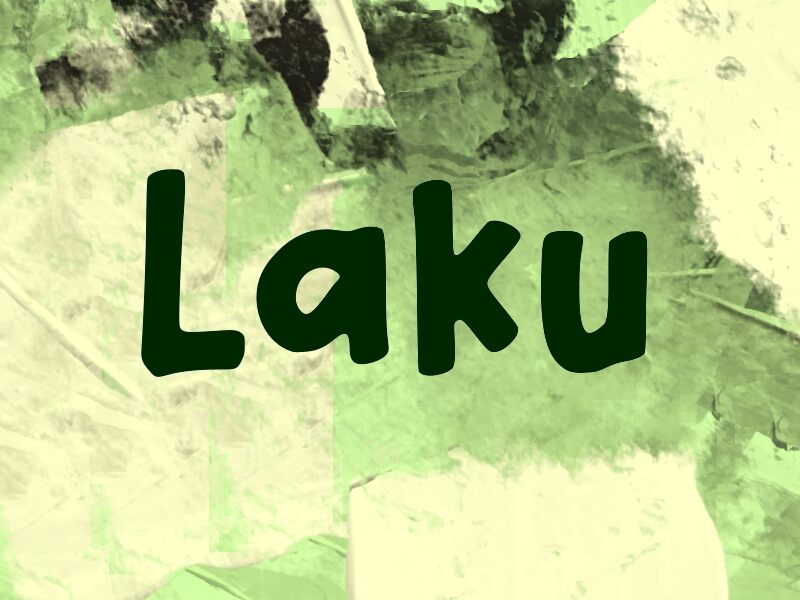
L Laku font designed by wep is a free font for personal use cartoon typeface with an informal and cheerful style. The letters of this playful font are round and curvy, with each character having a distinct fun form. The casual style is retained in the character set making the font perfect for projects aimed at children or young audiences.
Dress up toys and games product packaging, children’s books, comic books, or even YouTube video thumbnails. The typeface is also an appropriate one for brands selling children’s products like cereals, apparel, and toys. It is finally an informative choice for charts and signs in spaces aimed at children like hospitals, schools, and daycare centers.
Laku is a stylish, free font designed for creative projects. Its unique design brings a fresh perspective to typography, making it an excellent choice for anyone looking to enhance their work with a modern touch. Whether you are creating posters, banners, or digital graphics, Laku adds an artistic flair that captures attention.